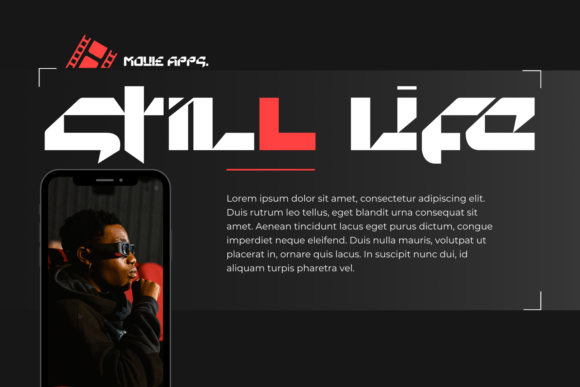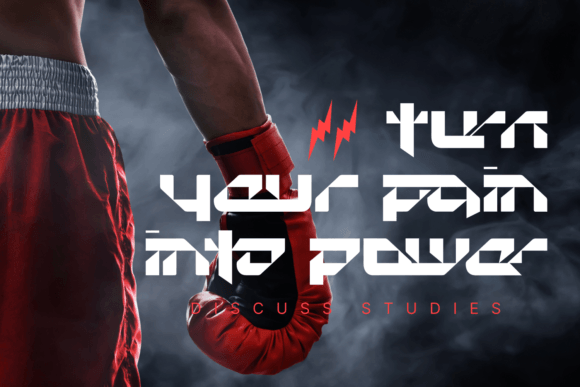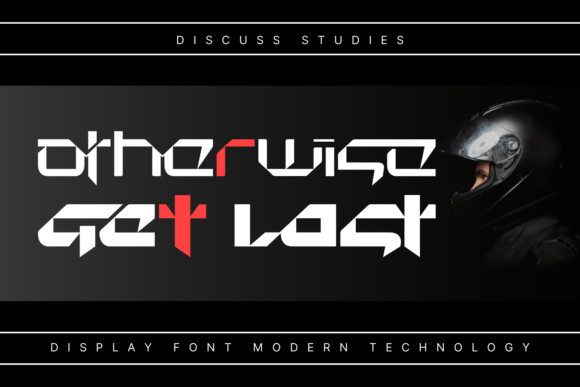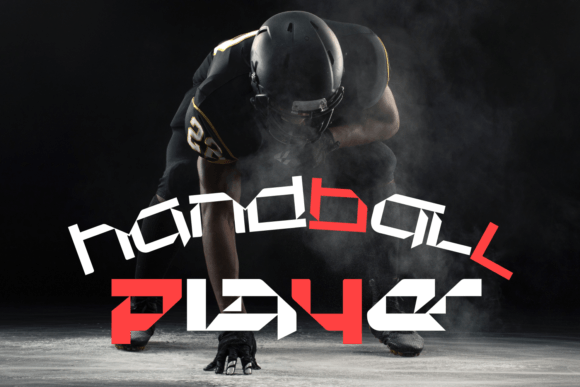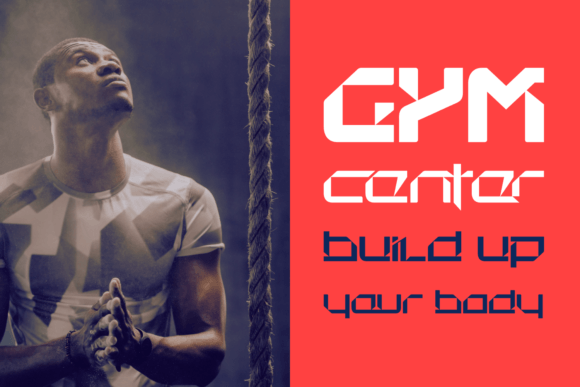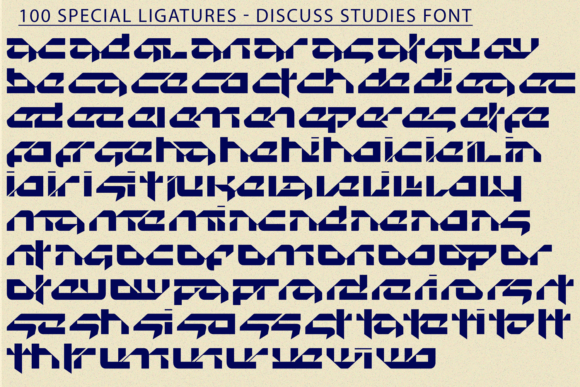
Introducing Discuss Studies Font: The Ultimate Futuristic Sans Serif Font
In the world of typography, a font can make or break a design. For designers and crafters, finding the perfect font that embodies the essence of their creative project can be a daunting task. However, with the Discuss Studies Font, your search is over. This modern sans serif font with geometric details is a game-changer, offering a premium feel that’s perfect for a wide range of design applications.
What is Discuss Studies Font?
Discuss Studies Font is a premium sans serif font that boasts a futuristic aesthetic with clean lines and geometric shapes. Its modern design makes it an ideal choice for designers looking to add a touch of sophistication to their work. Whether you’re creating an invitation card, designing a company logo, or working on a magazine layout, this font is sure to impress.
Key Features of Discuss Studies Font
- Modern Sans Serif Design: Discuss Studies Font features a sleek and contemporary sans serif design that’s perfect for modern designs.
- Geometric Details: The font’s geometric details add a touch of sophistication, making it ideal for premium designs.
- OpenType Features: Discuss Studies was built with OpenType features, which provide a range of typographic options.
- 100 Ligatures: The font includes 100 ligatures, allowing for more creative freedom and flexibility.
- Alternate Characters: The font features alternate characters, numbers, and punctuation, giving you more options for customizing your design.
- Multi-Language Support: Discuss Studies Font supports multiple languages, making it a great choice for global designs.
Use Cases for Discuss Studies Font
Discuss Studies Font is a versatile font that can be used for a wide range of design applications, including:
- Invitation Card Designs: Add a touch of elegance to your invitation cards with this premium font.
- Company Logos: Create a professional and modern logo for your business with Discuss Studies Font.
- Magazines: Use this font to create a clean and modern magazine layout.
- Business Cards: Stand out with a professional and stylish business card design.
- Book Titles: Add a touch of sophistication to your book titles with this premium font.
- Brand Names: Create a strong brand identity with Discuss Studies Font.
Why Choose Discuss Studies Font?
So, why should you choose Discuss Studies Font for your next design project? Here are just a few reasons:
- Unique Design: This font offers a unique and distinctive design that’s sure to set you apart.
- High-Quality Typography: Discuss Studies Font features high-quality typography, ensuring that your design looks professional and polished.
- Flexibility: With its range of OpenType features and alternate characters, this font offers a high level of flexibility.
In conclusion, Discuss Studies Font is a premium sans serif font that’s perfect for designers and crafters looking to add a touch of sophistication to their work. With its modern design, geometric details, and range of OpenType features, this font is sure to impress. Whether you’re working on a logo design, magazine layout, or business card, Discuss Studies Font is the perfect choice. So why wait? Download Discuss Studies Font today and take your designs to the next level.